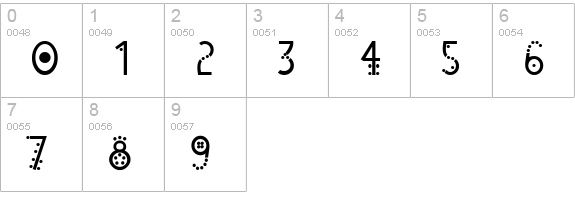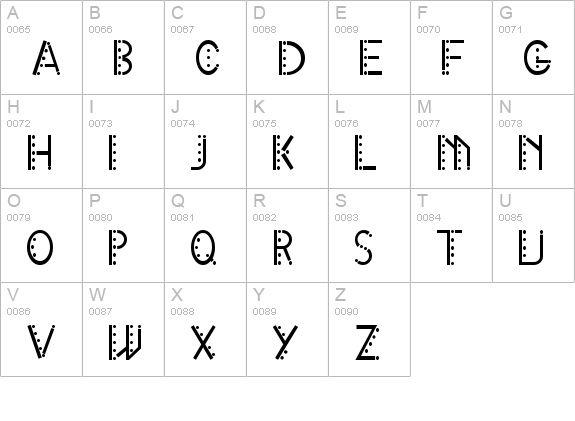
Lyman Normal Font Details
Lyman Normal is the standard, neutral variant in the Lyman typeface family \xE2\x80\x94 well suited to general body text, paragraphs, and standard typographic work.
Introducing Lyman Normal font - a versatile and elegant typeface that exudes a sense of timeless sophistication. With its clean lines and modern appearance, Lyman Normal is perfect for a wide range of design projects, from branding to editorial design. This font features a classic yet contemporary look that is sure to make your text stand out. Its balanced proportions and subtle detailing make it easy to read while still commanding attention. What's more, Lyman Normal is available for free download at FontsMarket.com, making it accessible to all designers looking to elevate their work with a high-quality font. Don't miss out on the opportunity to add this stylish and versatile typeface to your font collection today!